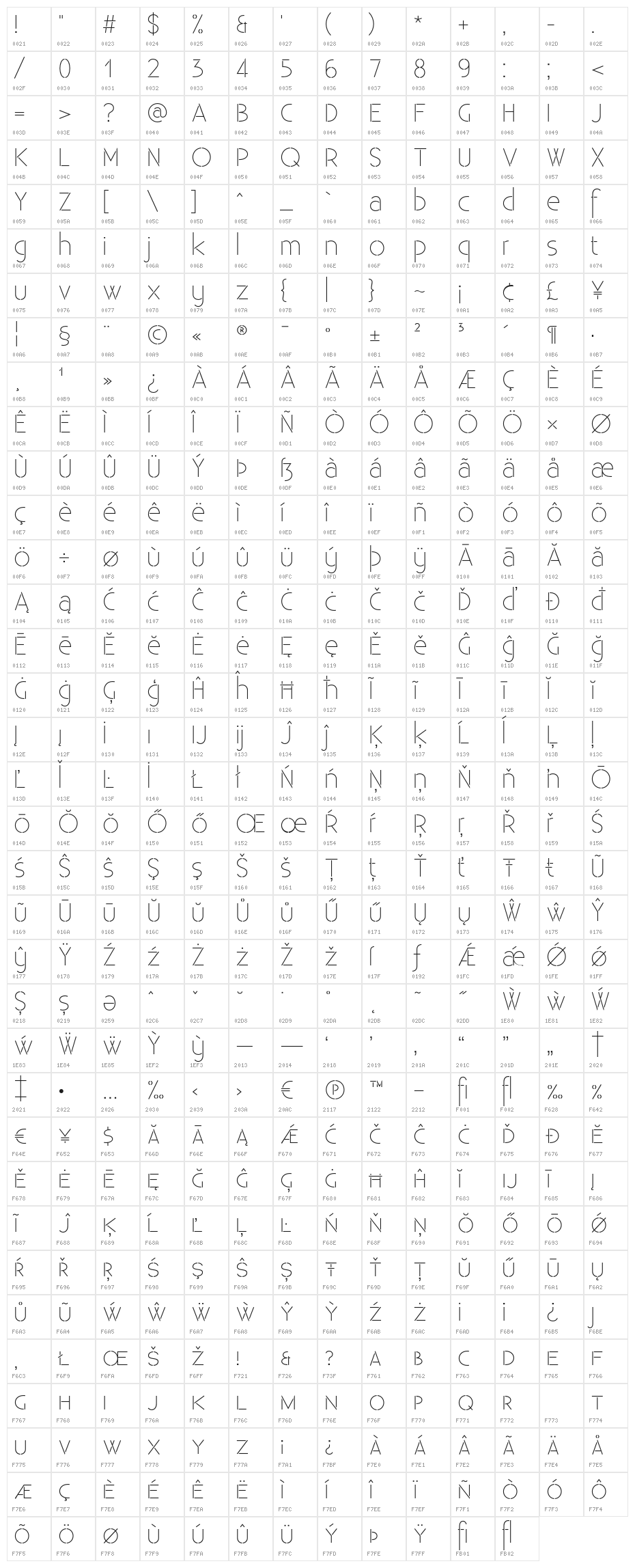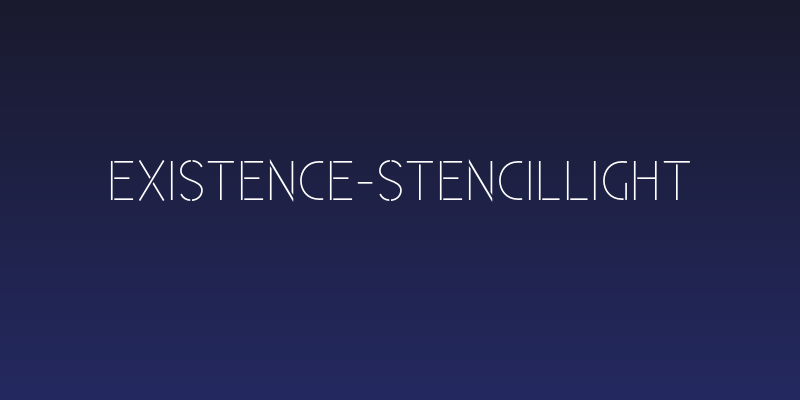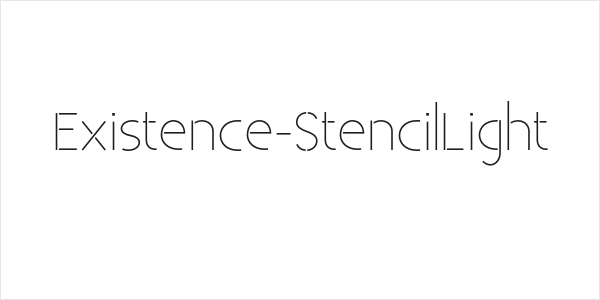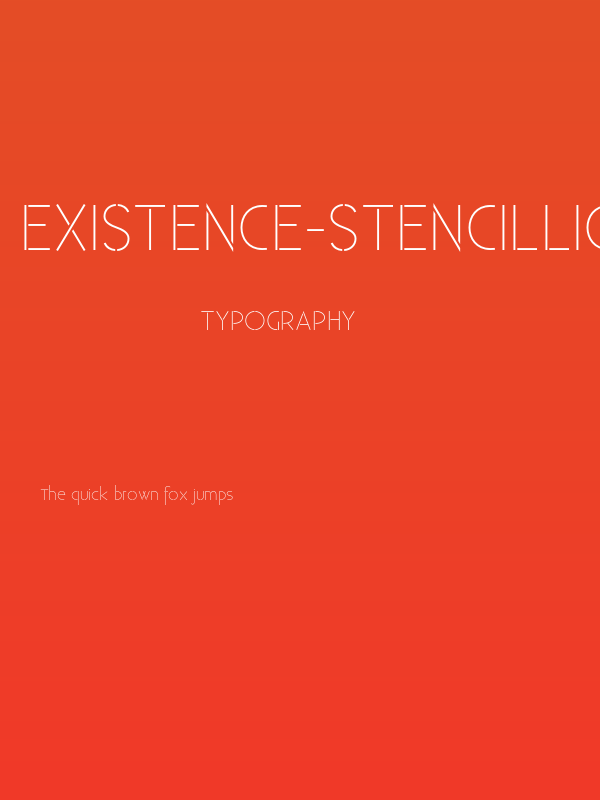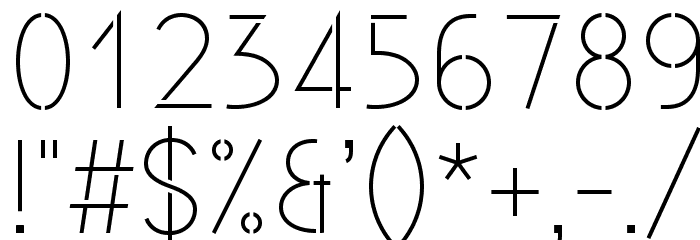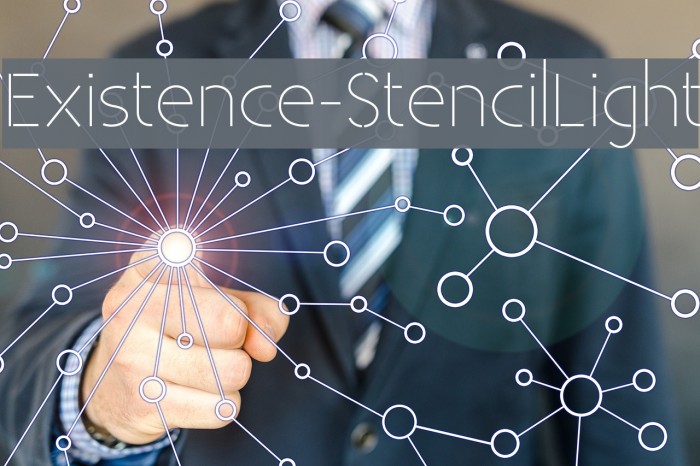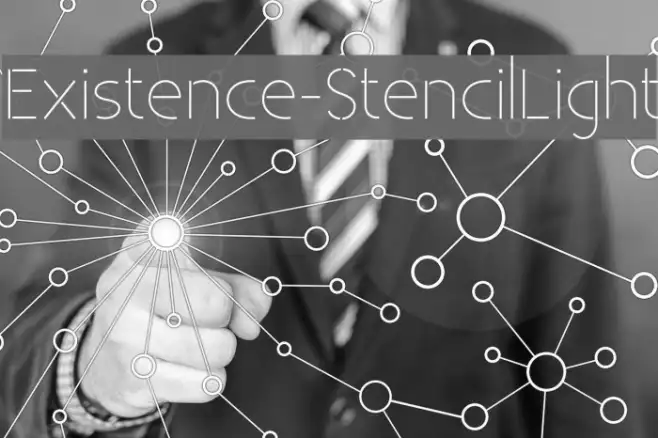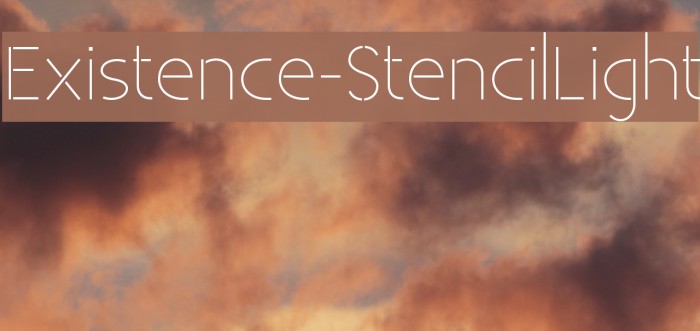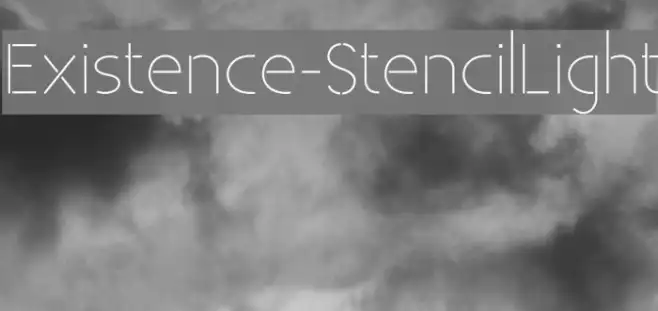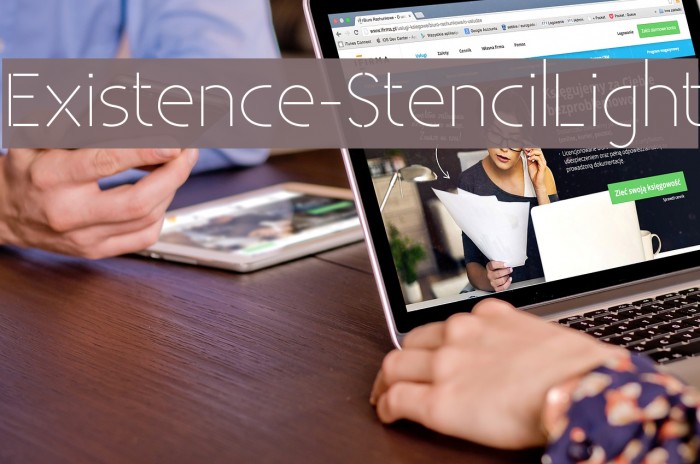
Existence-StencilLight Font
Existence-StencilLight Description
This font presents a modern and minimalist design, characterized by its clean lines and geometric shapes. The uppercase and lowercase letters are crafted with precision, featuring a uniform stroke width that gives a sense of balance and harmony. The numerals are equally well-designed, maintaining the same geometric aesthetic. Special characters are included, each designed to match the overall style of the font. The font's simplicity and clarity make it highly readable, while its contemporary look adds a touch of elegance and sophistication. It's ideal for projects that require a sleek and professional appearance.
| Proposed Projects | Ideal for branding, corporate design, modern websites, and minimalist posters. |